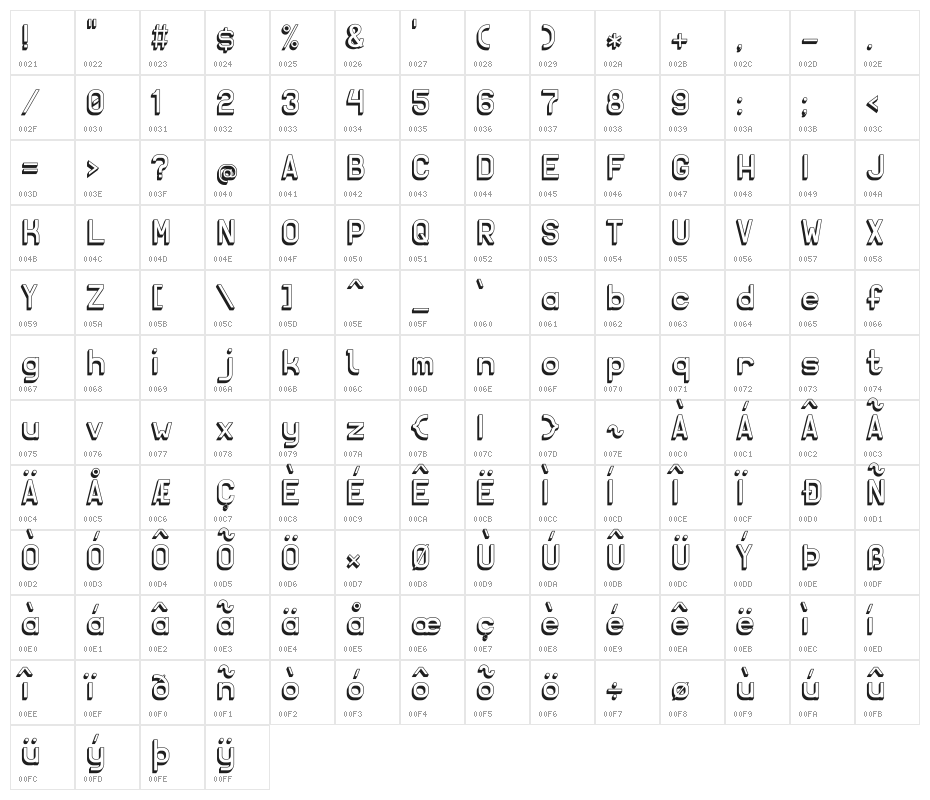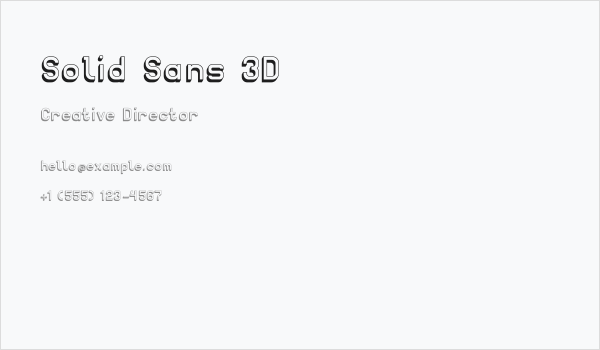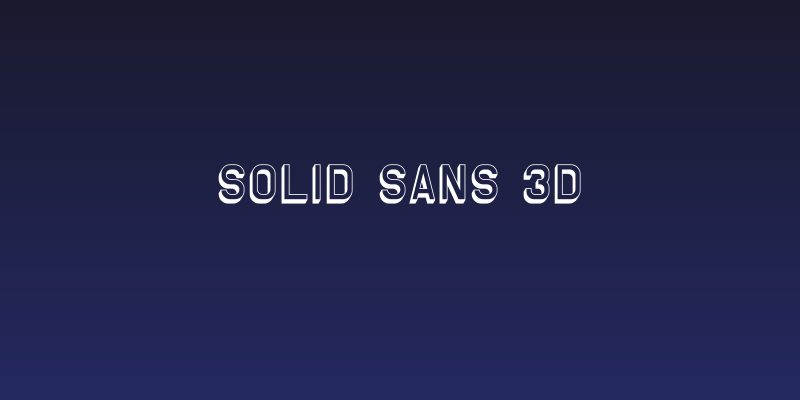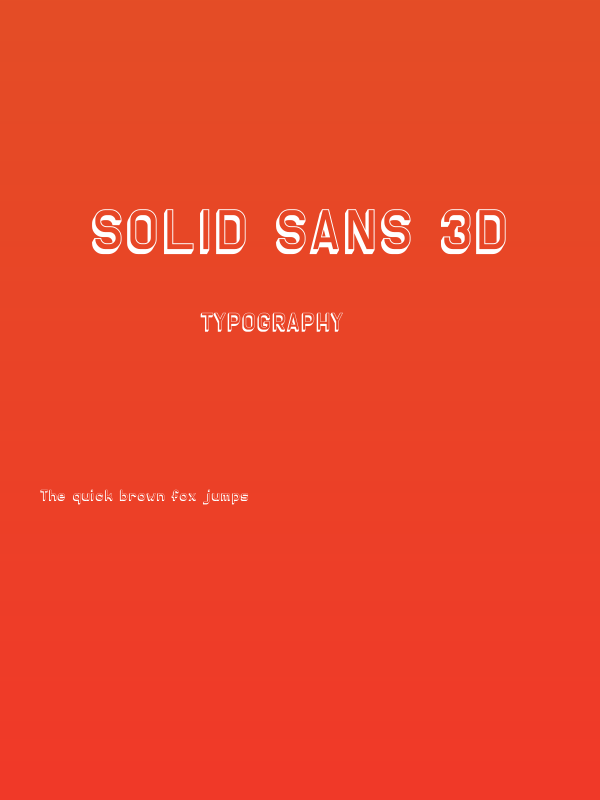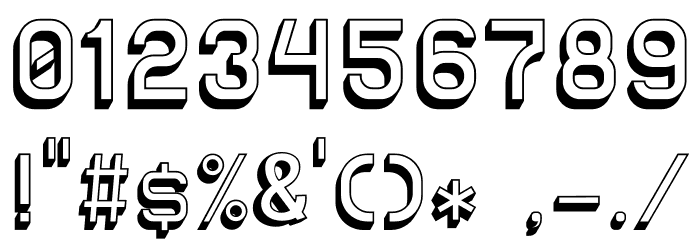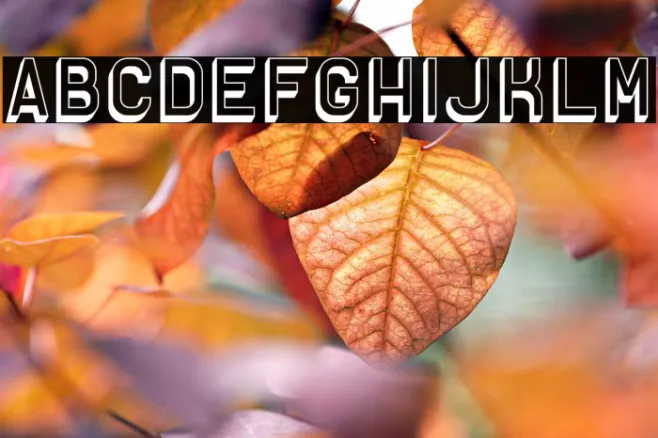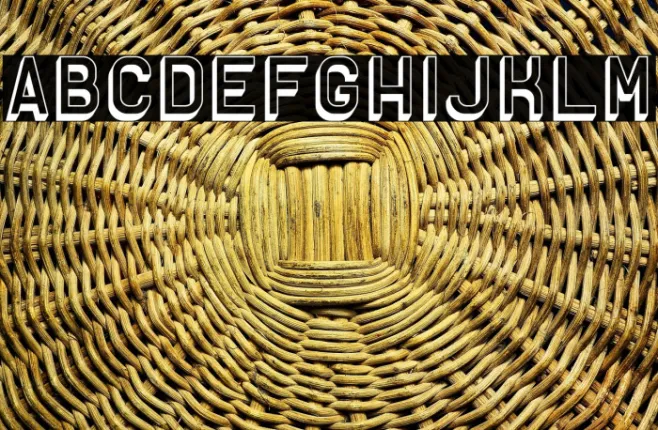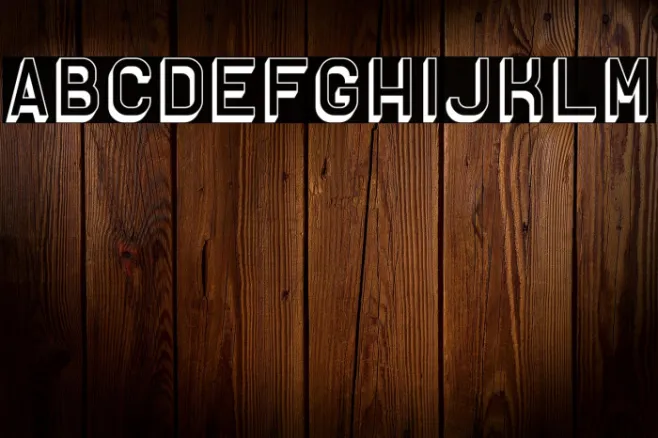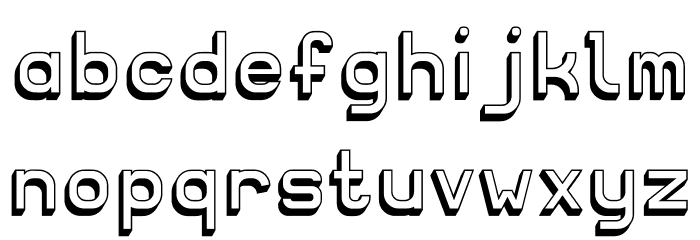
Solid Sans 3D Font
Solid Sans 3D Description
This font features a bold, three-dimensional sans-serif style with a modern and playful aesthetic. The letters are outlined with a shadow effect, giving them a distinct 3D appearance. The uppercase and lowercase letters maintain a consistent geometric structure, with clean lines and uniform proportions. The numerals and special characters are designed to match the overall style, ensuring a cohesive look across all text elements. This font's unique design makes it stand out, making it ideal for eye-catching headlines and creative projects.
| Proposed Projects | Ideal for headlines, posters, logos, and any design requiring a bold, eye-catching typeface. |